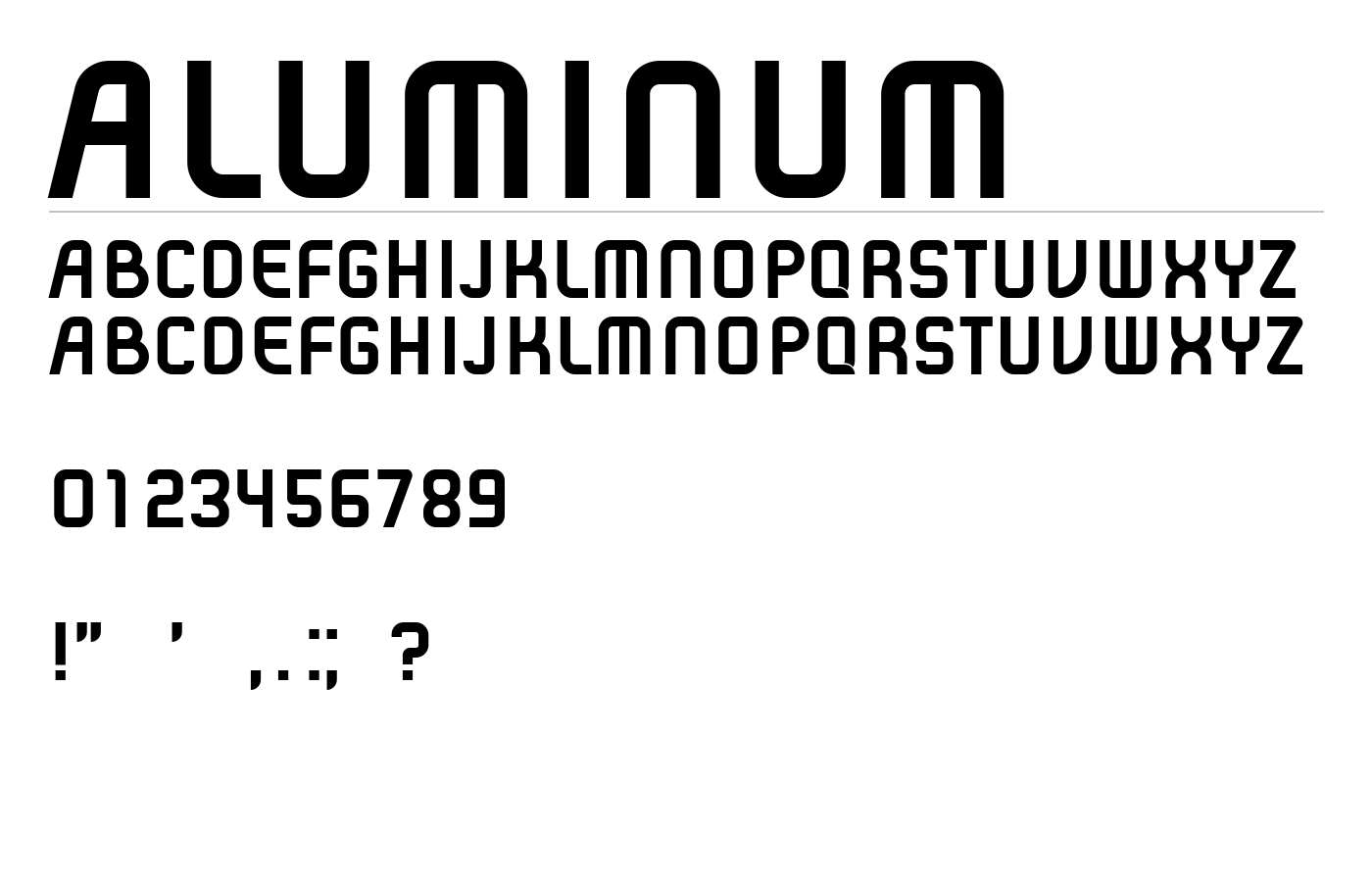
Aluminum is a modern, condensed sans-serif font with a strong geometric structure and medium weight, offering a clean and technical appearance. Its tall, narrow letterforms with consistent stroke width and subtle rounded corners create a sleek, industrial feel ideal for contemporary branding, headlines, and digital interfaces that require a futuristic yet approachable style. This font works well in situations where clarity and a modern edge are essential, such as tech logos, magazine titles, and stylish packaging.
Aluminum Font
About Aluminum Font